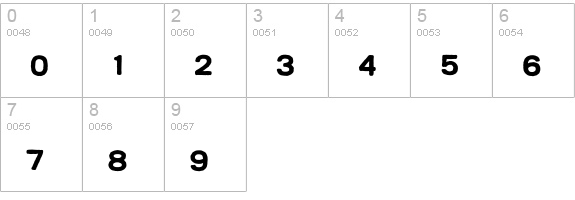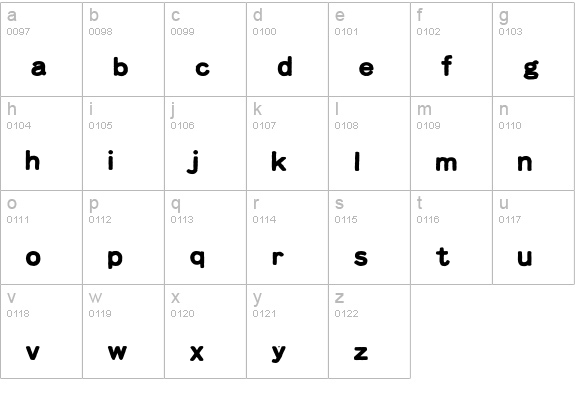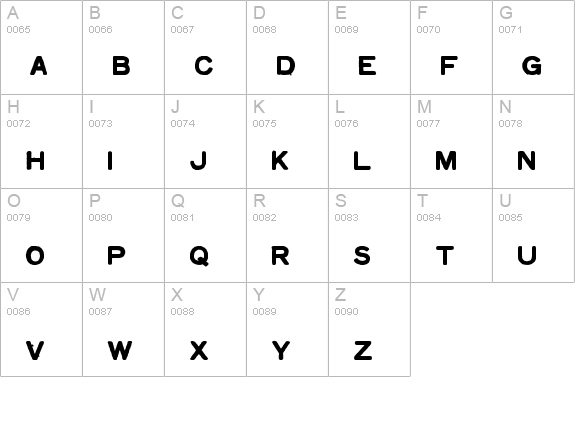
FaxfontTone Font Details
FaxfontTone is a versatile and modern font that is perfect for a wide range of design projects. With its clean lines and sleek appearance, this font exudes a sense of sophistication and professionalism. Whether you are creating a logo, website, or marketing materials, FaxfontTone is sure to make your text stand out. The best part? FaxfontTone is completely free to download at FontsMarket.com. This means you can elevate your designs without breaking the bank. Don't miss out on this fantastic opportunity to enhance your typography with a high-quality font that is both stylish and affordable. Download FaxfontTone today and take your design projects to the next level.